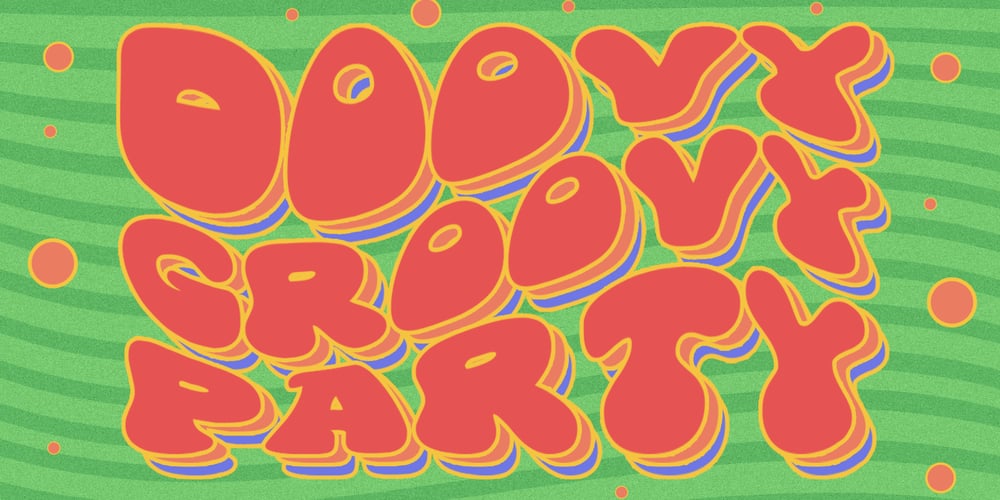
Doovy Groovy Party
Doovy Groovy Party font
Doovy Groovy Party Font Family was designed by Mohamad Farhan Ramadhan and published by Mofr24. Doovy Groovy Party contains 3 styles and family package options. Introducing the Doovy Groovy Party font! This stylized, psychedelic, and round Groove Display Font takes you back to the 90’s and 00’s era. With its multilingual support, it’s perfect for creating a pop, funky, and bold vibe.What sets the Doovy Groovy Party font apart is its unique ability to capture the essence of the vibrant and energetic 90’s and 00’s era. Its stylized, psychedelic design evokes a sense of nostalgia while still offering a fresh and contemporary look. This font is a true standout, allowing your designs to stand out as well.For designers looking to create harmonious compositions, the Doovy Groovy Party font has a few relatives and typefaces that complement it beautifully. Consider pairing it with “Retro Sans Serif” for a bold and cohesive look, or experiment with “Funky Display” to amplify the funky vibes. These combinations will add an extra layer of creativity and versatility to your design projects.The Doovy Groovy Party font comes in three variations – Regular, Outline, and Shadow – making it a versatile tool for various design needs. The Regular version provides a solid foundation, ideal for headlines and titles that demand attention. The Outline variation adds an element of sophistication and can be used for modern designs, while the Shadow option creates depth and dimension for a more dynamic appearance. Additionally, this font boasts extensive multilingual support, ensuring that it can be used effectively across different languages and cultures.The Doovy Groovy Party font draws inspiration from the bold and expressive typography prevalent in the 90’s and 00’s. It captures the vibrant and carefree spirit of that era, where music, art, and pop culture collided to create an explosion of creativity. The psychedelic elements incorporated into the font pay homage to the colorful and trippy visuals that defined the time. This font encapsulates the nostalgia and excitement of those years, allowing designers to infuse their projects with a sense of fun and playfulness.We created the Doovy Groovy Party font with a passion for celebrating the bold and expressive designs of the past. We wanted to provide designers with a versatile tool that brings the nostalgic charm of the 90’s and 00’s to their modern projects. By using this font, you can effortlessly transport your audience to a time when colors were brighter, music was groovier, and creativity knew no bounds. Let your imagination run wild with the Doovy Groovy Party font and infuse your designs with a vibrant touch that will captivate and inspire!Unlock the power of nostalgia and creativity with the Doovy Groovy Party font. Its unique design, versatile variations, and multilingual support make it the perfect choice for posters, marketing materials, T-shirt designs, headlines, and much more. Get ready to groove and let this font elevate your creative projects to a whole new level!